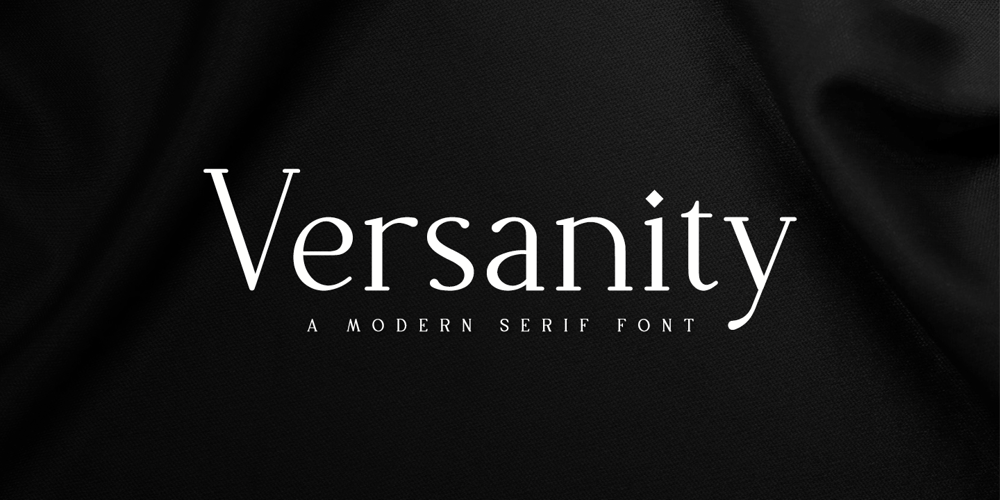
Versanity Font Family was designed by Hayinah and published by Rockboys Studio. Versanity contains 1 styles and family package options. Versanity is an elegant and authentic serif font. No matter the topic, this font will be an incredible asset to your fonts’ library, as it has the potential to elevate any creation.